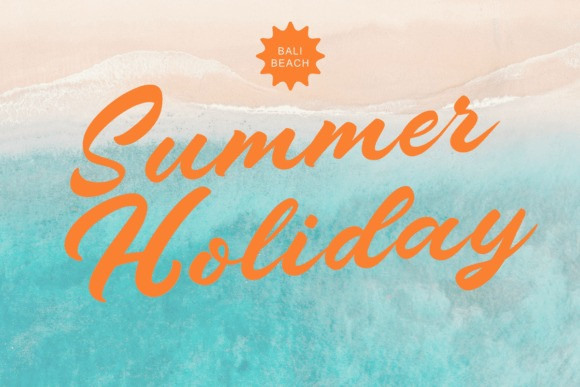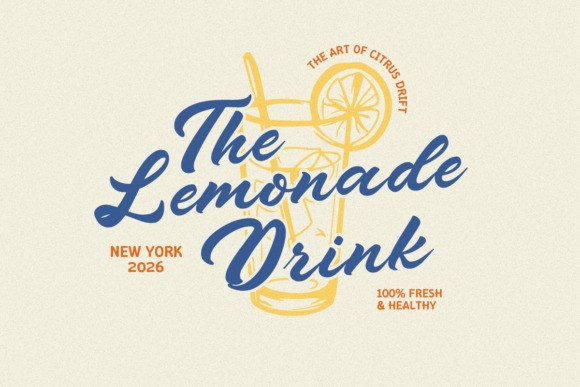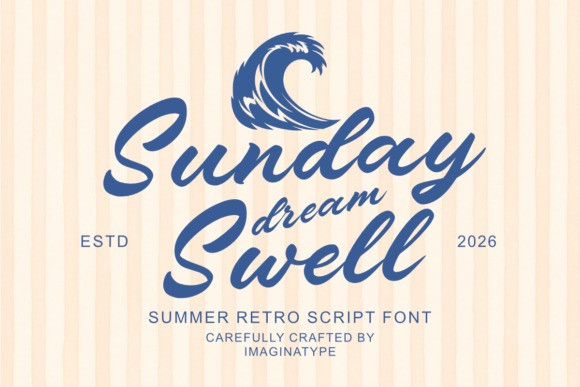
Sunday Dream Swell Script Font – Catch that nostalgic wave. Transport your audience to a golden, carefree era with Sunday Dream Swell, a bold and dynamic retro script typeface that captures the spirit of vintage summer vacations.
Sun-drenched craftsmanship. Characterized by its confident, hand-painted brush strokes and an expressive, textured baseline, Sunday Dream Swell offers a perfect blend of friendly warmth and high-energy movement. It’s a powerful display typeface, commanding attention with its robust weight and distinctive, playful letterforms.
Endless applications. Sunday Swell is ideal for commanding headlines and eye-catching commands. Use it for surf-themed merchandise, nostalgic resort branding, vintage packaging, playful lifestyle identities, or any project needing a dynamic presence and a carefree vibe.
The perfect blend. Described as a bold, carefree script, Sunday Swell balances its retro mid-century modern aesthetic with excellent readability. Its unique capability to evoke the relaxed, sun-soaked atmosphere of a classic seaside getaway makes this typeface a standout tool for retro design enthusiasts and anyone creating adventure-themed projects.
Ready to go. Perfect for greeting cards, event invitations, restaurant menu titles, tourism logos, and any project that needs a heartfelt and inviting touch. This font is PUA encoded, giving you easy access to all its special glyphs and ligatures.